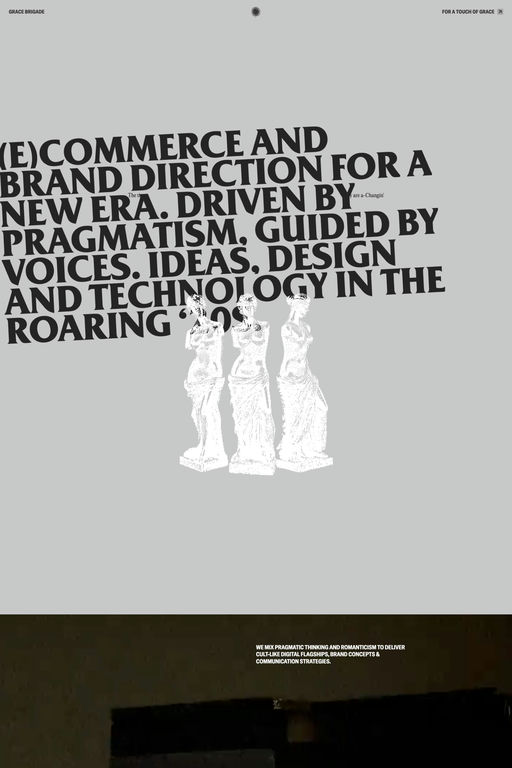
Friz Quadrata is a serif typeface from ITC.
A1 features 1 website using Friz Quadrata. It leans towards Black and white, Minimal, and Typographic design styles, and it’s most often built with Next.js.